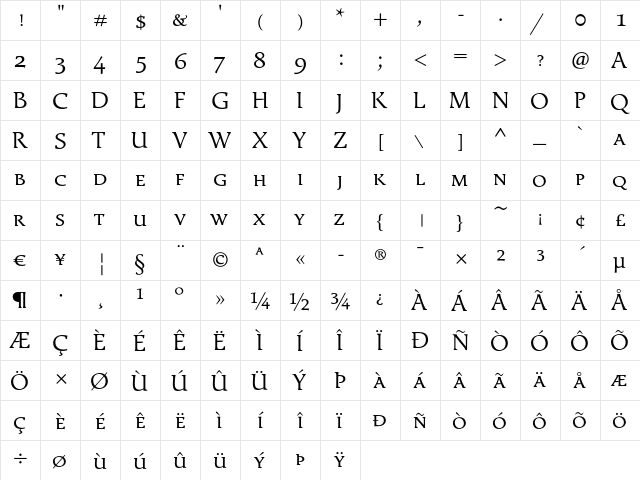
Exlibris Regular
Design Context for Exlibris Typeface
Exlibris offers clean, dependable letterforms without strong stylistic allegiance, making it a practical choice for designers who need flexibility.
Pro Tip: Use Exlibris in both headline and body roles to test its range before committing to a single application.